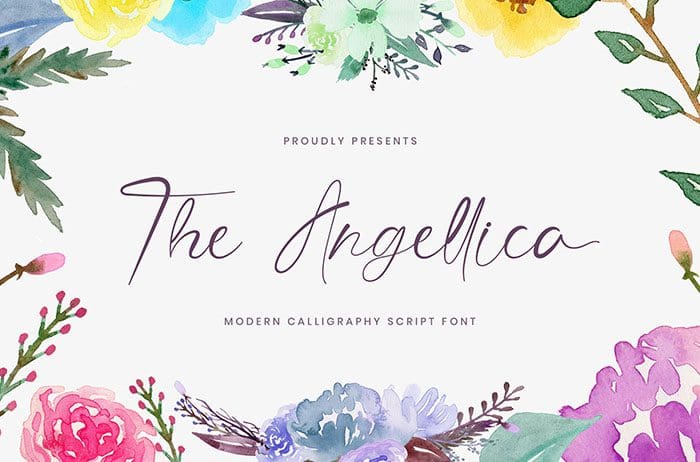
Angellica modern calligraphy script font with casual style. This font is perfect for fashion brand, wedding invitation, business card, logo brand, signature, and also for calligraphy purpose. This font is available only for personal use. Created this font by StringLabs. You can also search more free Calligraphy Fonts. Thanks.
Designed By : StringLabs